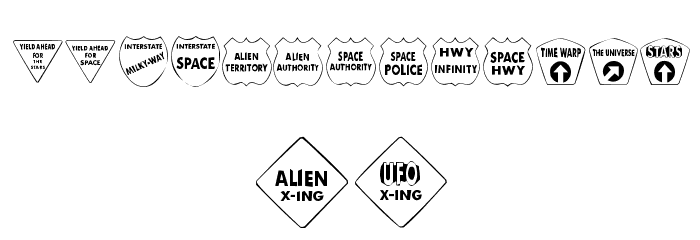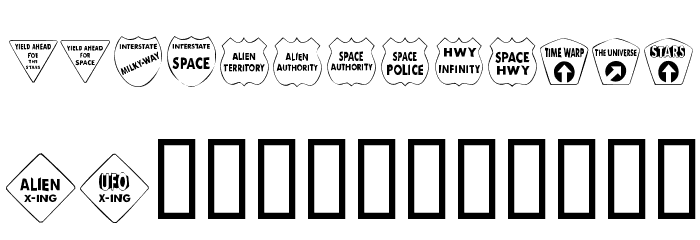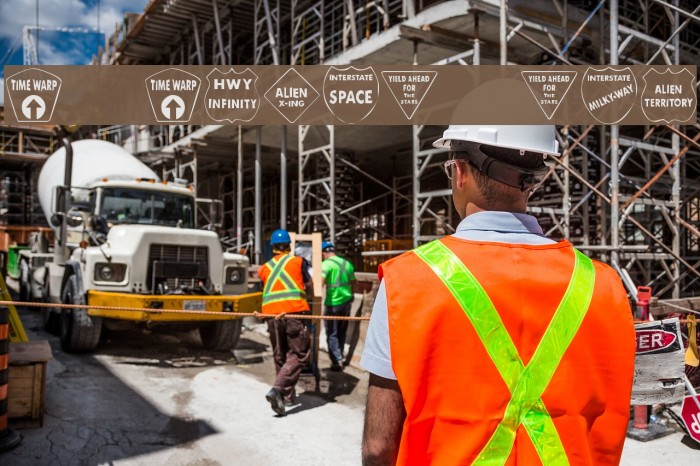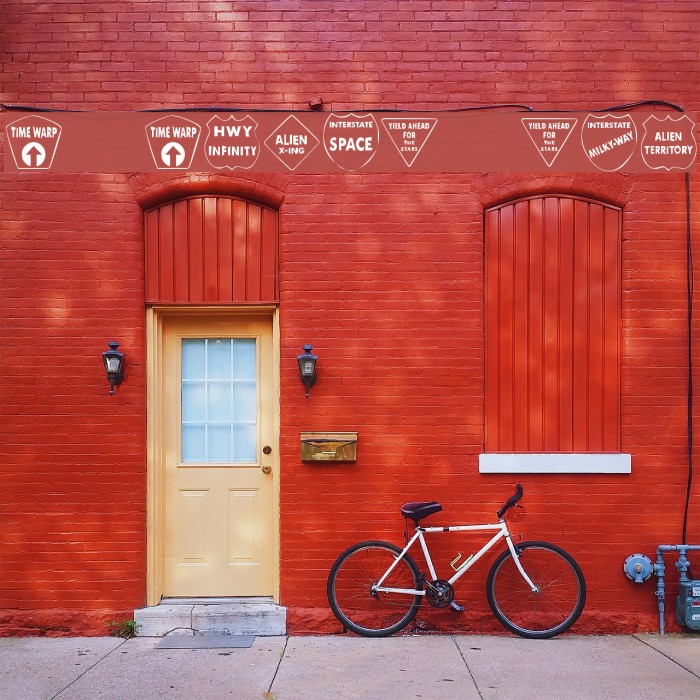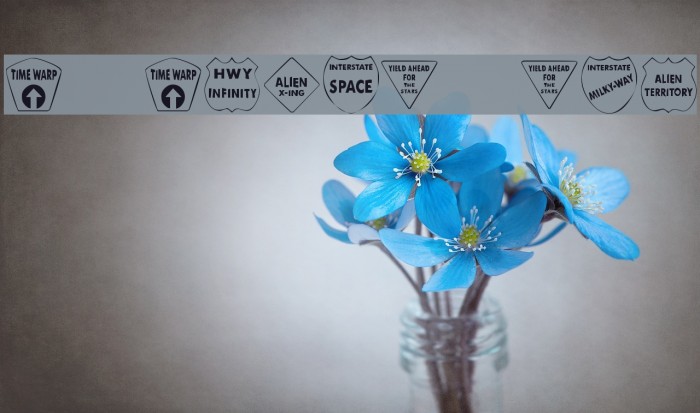
KR Kinda Spacey Font
This design features a playful and thematic collection of space-related signs and symbols, reminiscent of road signs but with a cosmic twist. The characters are bold and clear, designed to mimic the appearance of official signage with a humorous and imaginative flair. Each sign is uniquely shaped, adding to the whimsical and creative nature of the design. The text is straightforward and legible, ensuring that the playful messages are easily communicated. This collection is perfect for projects that aim to capture a sense of adventure and exploration, with a nod to science fiction and space travel.
A playful, space-themed collection of sign-like designs with bold, clear text.
- Proposed Projects: Ideal for themed parties, educational materials about space, sci-fi book covers, or decorative posters.
- Use Case: Logos, Posters, Themed Events